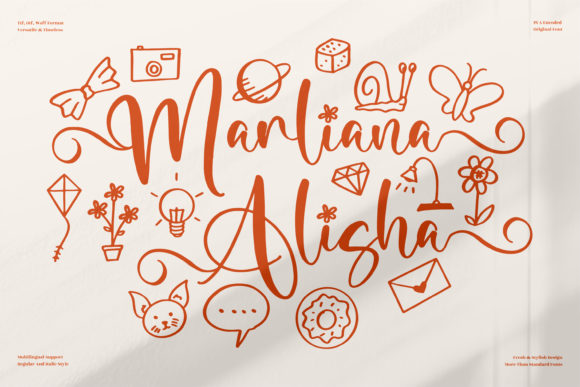
Step into a realm of elegance with Marliana Alisha Font, a captivating script family that weaves a tale of romance and sweetness. This exquisite typeface, crafted by the talented Perspectype, bestows a touch of luxury upon every design project, transforming your creative visions into masterpieces.
Marliana Alisha's graceful characters dance along the baseline, evoking a sense of timeless beauty. Its enchanting curves and delicate strokes add a personal touch to your creations, whether it's an intimate invitation, a heartfelt greeting card, or an eye-catching social media post.
With Marliana Alisha, you'll elevate your designs to new heights. This font is the epitome of sophistication, lending a touch of elegance to any project you undertake. It's the perfect choice for branding, logos, packaging, and websites that aim to leave a lasting impression.
Immerse yourself in a world of creative possibilities with Marliana Alisha. This versatile script font seamlessly blends into a myriad of design aesthetics, from classic and vintage to modern and contemporary. It complements both digital and print media effortlessly, making it an indispensable tool for designers of all levels.
Unleash your creativity and let Marliana Alisha guide your designs towards greatness. Experience the joy of crafting designs that exude elegance, romance, and a touch of luxury. With Marliana Alisha, your creative potential knows no bounds.